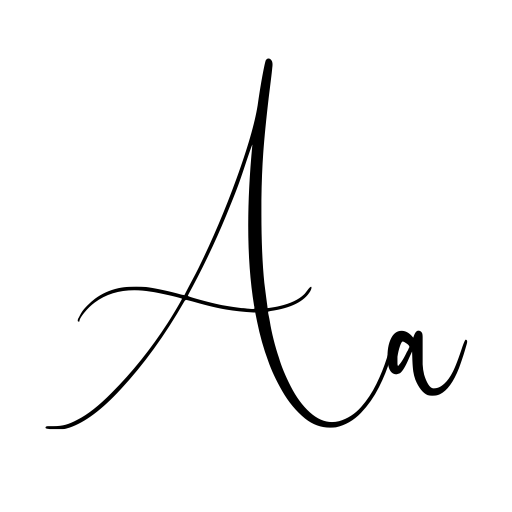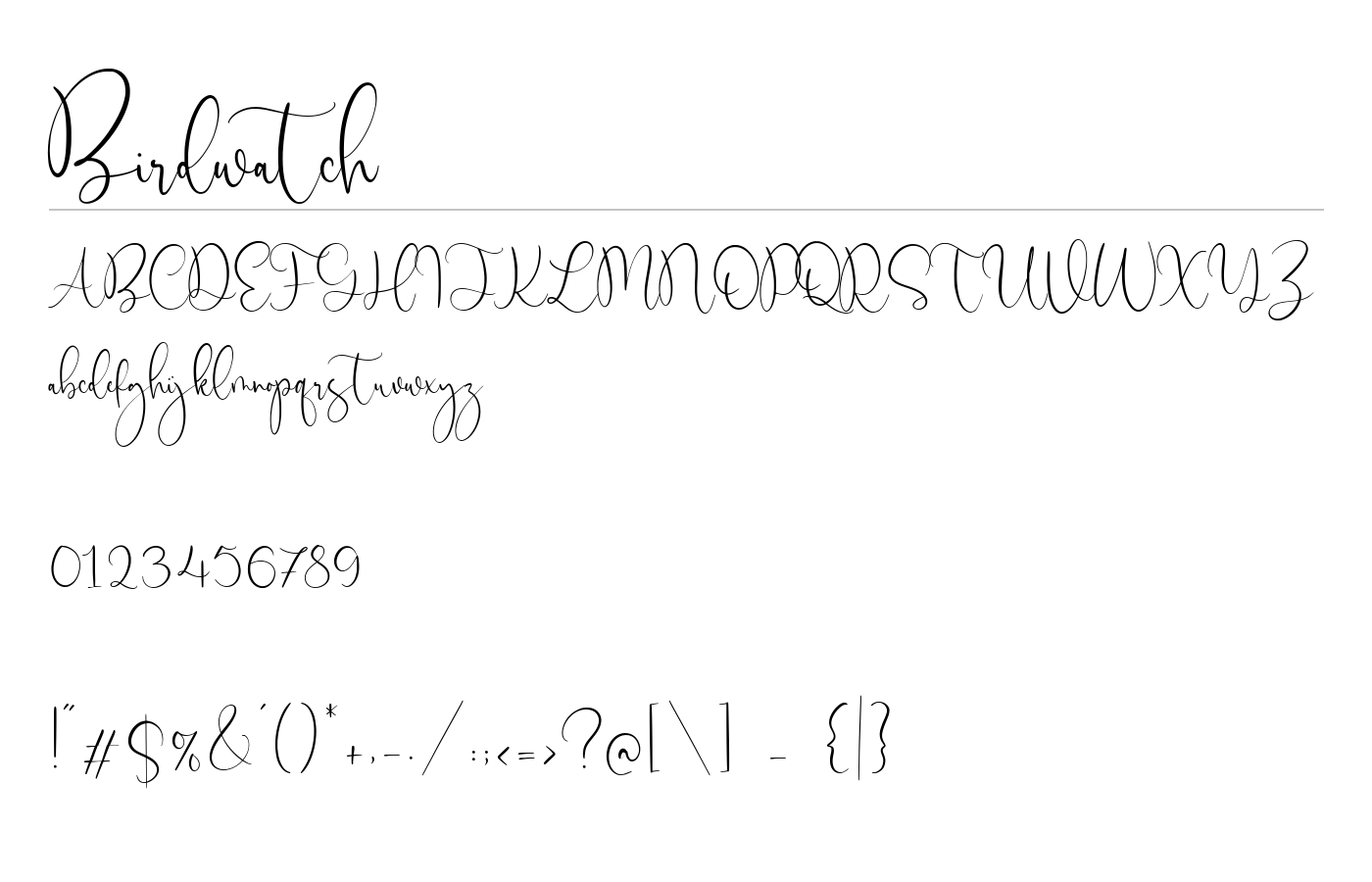
Birdwatch is a delicate and elegant script font characterized by its thin, flowing strokes and graceful loops, giving it a whimsical yet refined personality. Its airy, handwritten style works beautifully for invitations, branding, and editorial designs that seek a personal, sophisticated touch. This font shines best in decorative and headline uses where a light, artistic feel is desired.
Birdwatch Font
About Birdwatch Font
| Font family | Birdwatch Font |
| Designer | Letterative Studio |